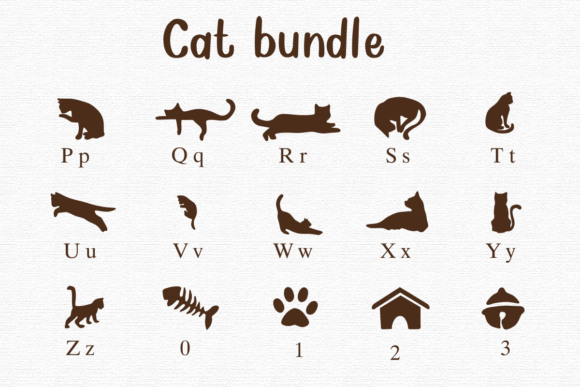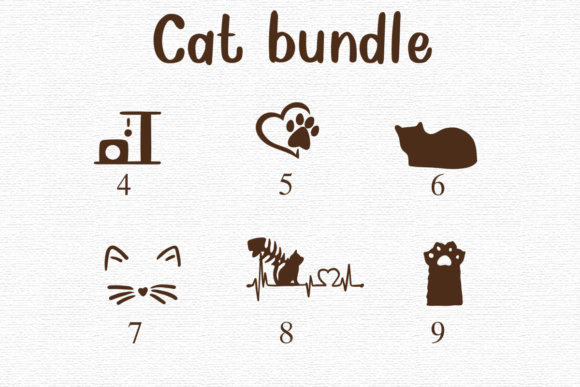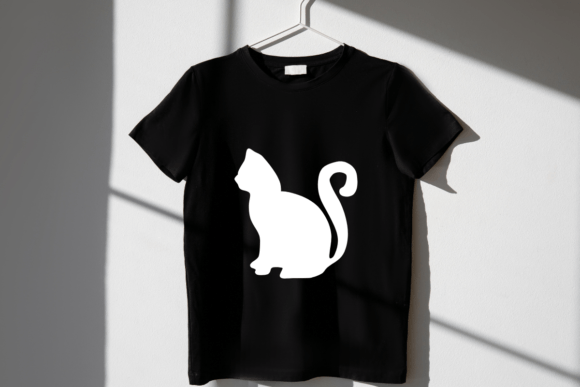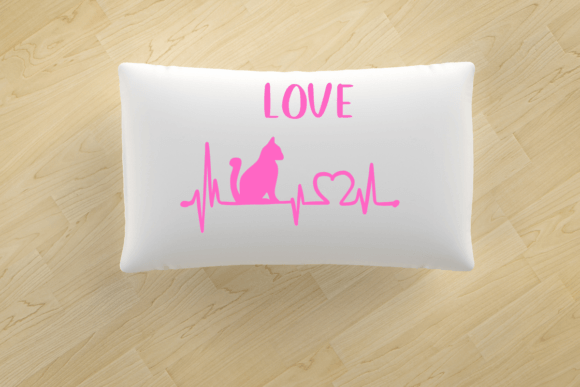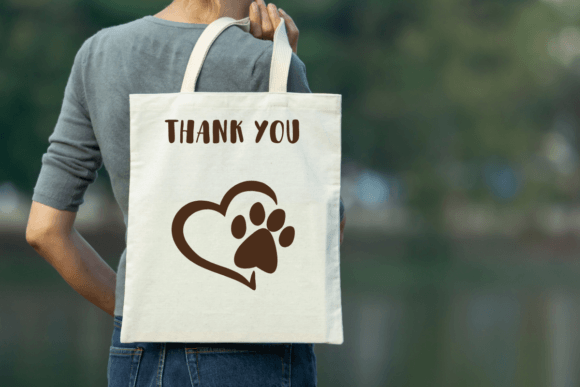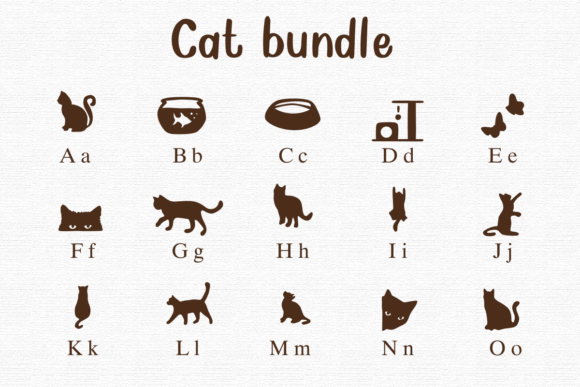
Introduction to Cat Bundle Font
“Cat Bundle is a fun font where each letter looks like a cute cat.
Instead of regular letters, you’ll see adorable cat faces, tails, and paws It’s perfect for adding a playful touch to your designs, like invitations, posters, or greeting cards.
Key Features of Cat Bundle Font
Why Choose Cat Bundle Font?